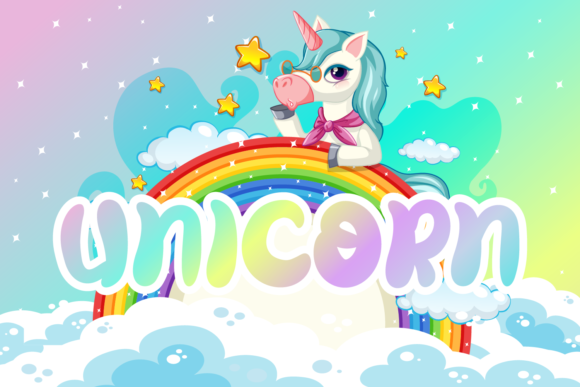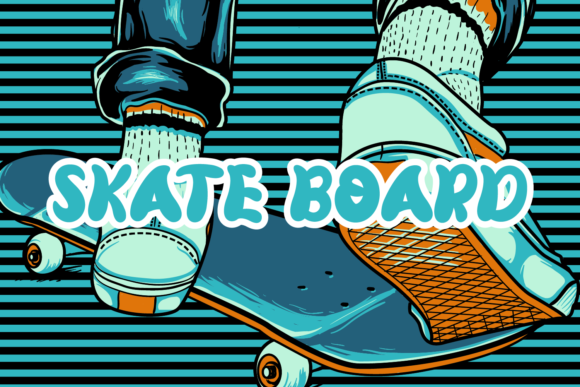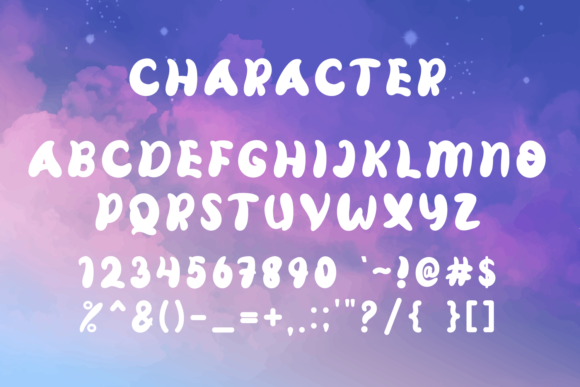
Introduction to Sket Slow Font
Have you ever stared at a blank canvas, unsure of where to start, until the perfect font suddenly sparks an idea and sets your creative juices flowing? That’s exactly what happened when we discovered the Sket Slow Font. This delightful display font is more than just a pretty face – it’s a game-changer for designers looking to elevate their projects to the highest levels.
With its genuine and all-round letters, the Sket Slow Font is a high-quality design resource that’s sure to bring a smile to your face. Whether you’re working on a free download project or a paid gig, this font is a valuable addition to any creative arsenal. And the best part? It’s available for free, making it an accessible design resource for designers of all levels.
Key Features of Sket Slow Font
- High-quality, hand-drawn design for creative projects
- Includes transparent background option for easy customization
- Designed to be versatile, suitable for various design applications
- Features a unique, slow-paced aesthetic for adding a creative touch
Honest Review: Sket Slow Font
As a designer, I’m always on the lookout for high-quality design resources to elevate my creative projects. I recently stumbled upon the Sket Slow Font, and I’m excited to share my honest review.
Here’s what works well: ✨ The Sket Slow Font is incredibly versatile, making it perfect for a wide range of design applications. Its unique, handwritten style adds a touch of personality to any project. The font is also available for free download, which is a huge bonus for designers on a budget.
Some potential limitations: ⚠️ While the font is high quality, it may not be suitable for large-scale commercial use due to its free nature. Additionally, the font’s transparent background can sometimes be a bit finicky, requiring some extra attention to detail when using it.
Overall, I’m really impressed with the Sket Slow Font. Its unique style and free availability make it a valuable addition to any designer’s toolkit. If you’re looking for a creative way to add some personality to your design projects, I’d definitely recommend giving it a try.
- Unique, handwritten style
Sket Slow Font is a high-quality, free download design resource ideal for creative projects requiring a unique touch. With a transparent background, this font is versatile and easy to integrate into various design applications.
Getting the Most Out of Sket Slow Font
To get the most out of Sket Slow Font, consider the following tips:
- Combine Sket Slow Font with other design elements, such as graphics and images, to create a unique visual identity.
- Use the font in conjunction with a clear and concise message to effectively communicate your ideas.
Sket Slow Font is ideal for a variety of design projects, including:
- Marketing materials, such as brochures and flyers
- Print design and advertising